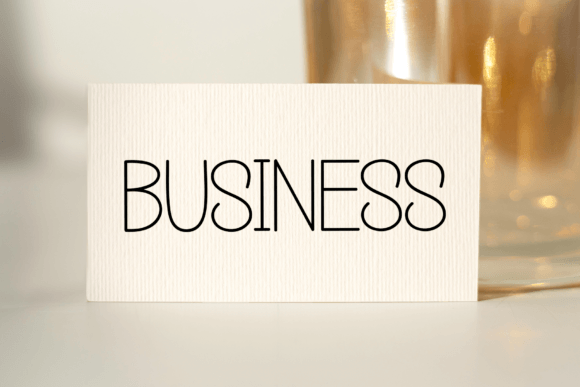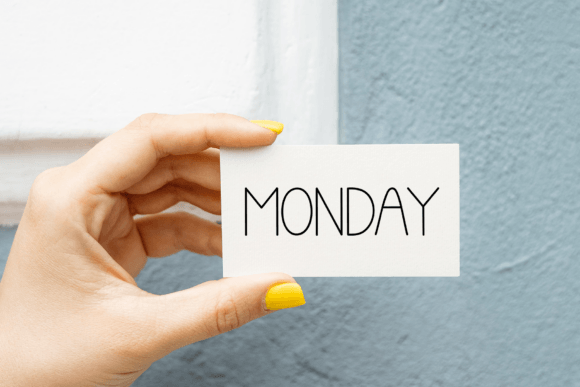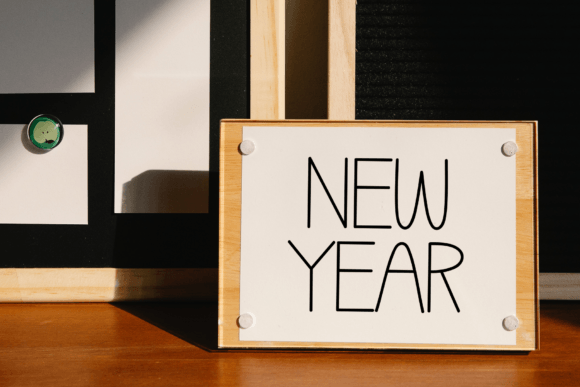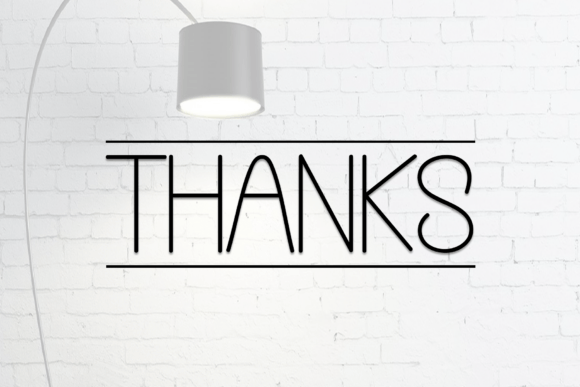
Introducing Dialog Font: The Perfect Blend of Luxury and Casual
In the world of typography, fonts play a crucial role in conveying the tone and personality of a brand or design. For designers and crafters looking for a font that exudes luxury, elegance, and a touch of casualness, Dialog Font is an excellent choice. This handwritten font, designed to mimic the look of marker-drawn letters, brings a relaxed and sporty feel to any design project.
What is Dialog Font?
Dialog Font is a unique, handwritten typeface that has the distinct look of being drawn with a marker. This characteristic gives it a personal and approachable feel, making it perfect for designs that require a touch of warmth and friendliness. The font’s relaxed and sporty vibe sets it apart from more traditional, serif fonts, offering a fresh alternative for creatives looking to add a modern twist to their work.
Key Features of Dialog Font
- Handwritten with a Marker Feel: The font’s most notable feature is its handwritten appearance, as if each letter was carefully drawn with a marker. This gives designs a personal and unique touch.
- Relaxed and Sporty Feel: Dialog Font embodies a laid-back, casual vibe that works well for brands and designs aiming for a friendly, approachable image.
- Luxurious and Elegant yet Casual: Despite its casual appearance, Dialog Font carries an air of sophistication and elegance, making it suitable for a wide range of applications, from high-end branding to casual greeting cards.
Use Cases for Dialog Font
Dialog Font’s versatility makes it an excellent choice for various design projects. Here are some of the best use cases for this unique font:
- Branding and Logos: Create a memorable brand identity with Dialog Font. Its unique blend of elegance and casualness makes it perfect for startups and established brands looking to rebrand or refresh their image.
- Wedding Supplies: Add a personal touch to wedding stationery, such as invitations, thank-you cards, and place cards, with Dialog Font’s charming and elegant feel.
- Greeting Cards: Whether it’s a birthday, anniversary, or holiday card, Dialog Font brings a warm, friendly vibe that makes any greeting card special.
- Fashion and Lookbooks: For fashion designers and brands, Dialog Font can add a sophisticated yet approachable feel to lookbooks, fashion magazines, and marketing materials.
- Marketing Promotions: Use Dialog Font in promotional materials to stand out. Its unique style can make flyers, brochures, and social media graphics more engaging and memorable.
Why Choose Dialog Font?
In a sea of fonts, Dialog Font stands out for its distinctive style and versatility. Here are a few reasons why designers and crafters should consider Dialog Font for their next project:
- Unique Style: Dialog Font offers a fresh alternative to traditional fonts, allowing designers to create standout designs.
- Versatility: Its suitability for a wide range of projects, from luxury branding to casual crafts, makes Dialog Font a valuable addition to any designer’s toolkit.
Dialog Font is a remarkable addition to the world of typography, offering a perfect blend of luxury, elegance, and casualness. Its unique, marker-drawn appearance and sporty feel make it an excellent choice for designers and crafters looking to add a personal touch to their work. Whether you’re creating branding materials, wedding supplies, greeting cards, or marketing promotions, Dialog Font is sure to elevate your designs to the next level.
Explore the possibilities with Dialog Font and discover how this versatile typeface can bring a fresh perspective and distinctive style to your projects.